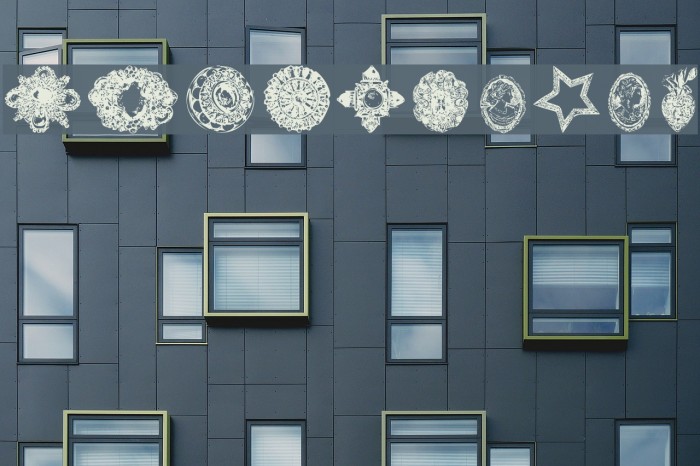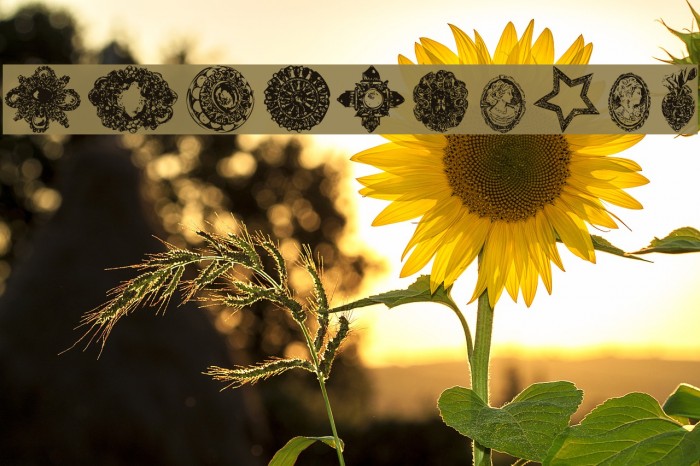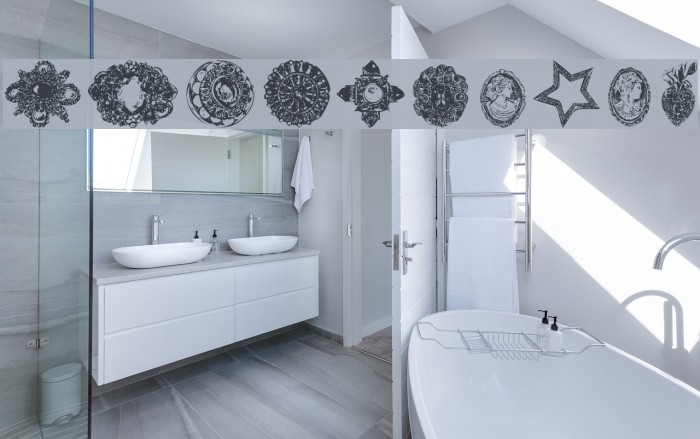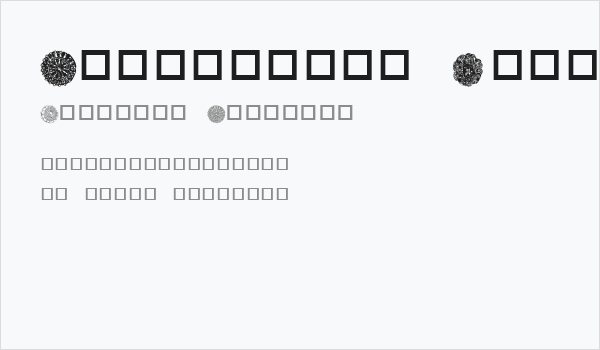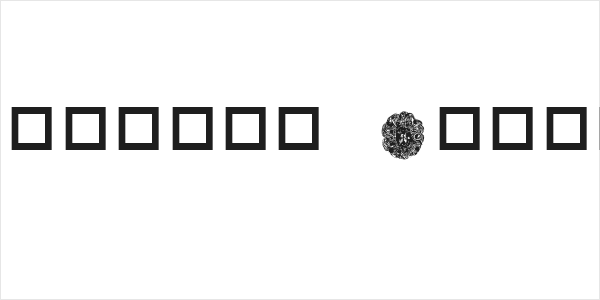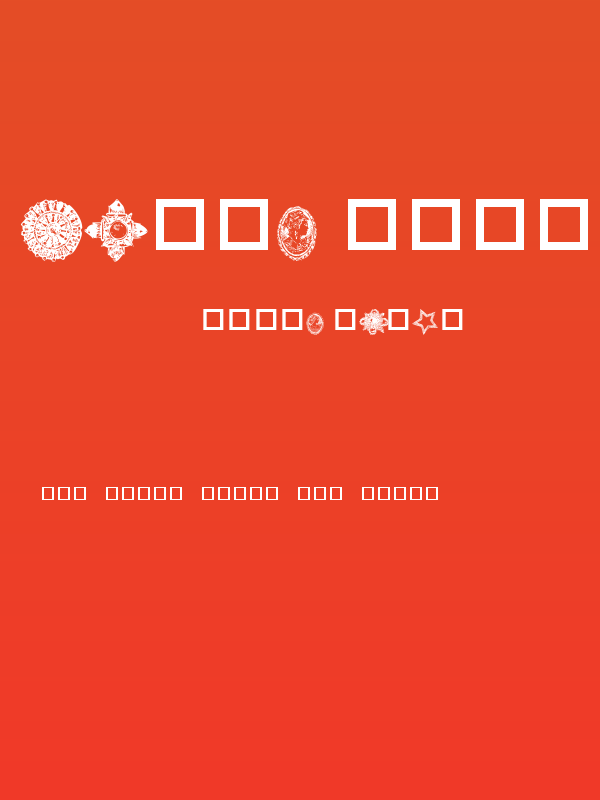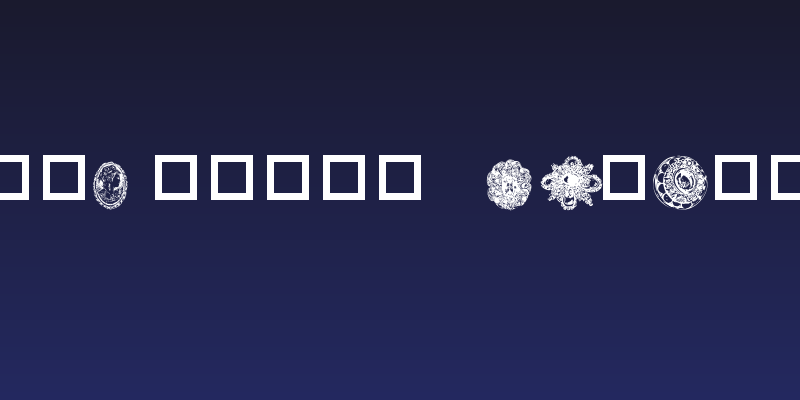
Destiny's Fancy's Font
Destiny's Fancy's Description
Ornate, highly decorative glyphs with intricate, vintage-inspired flourishes and embellishments, each character resembling a unique ornamental motif rather than standard letterforms.
Overall StyleVintage, Decorative
Use CaseLogos, Headlines, Decorative elements
Proposed ProjectsInvitations, certificates, event posters, branding for luxury or vintage-themed products, decorative headings.